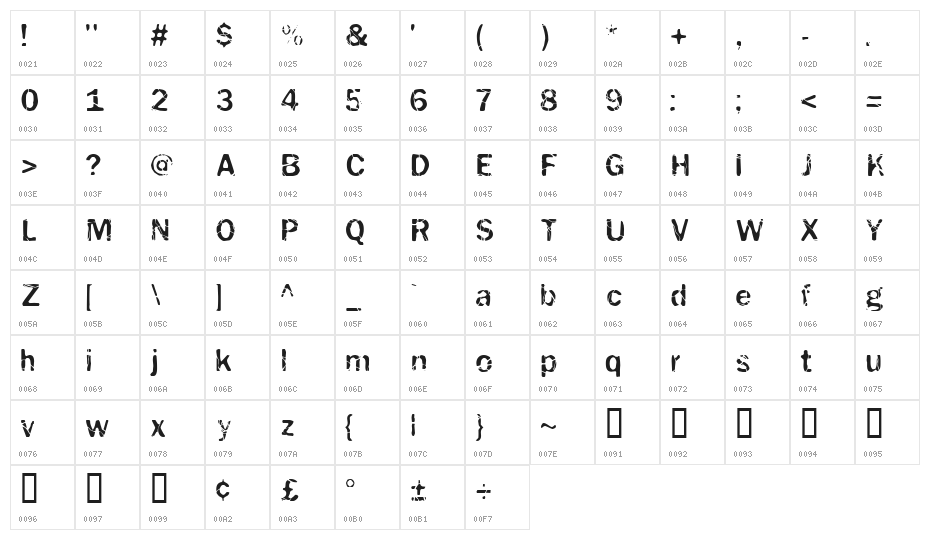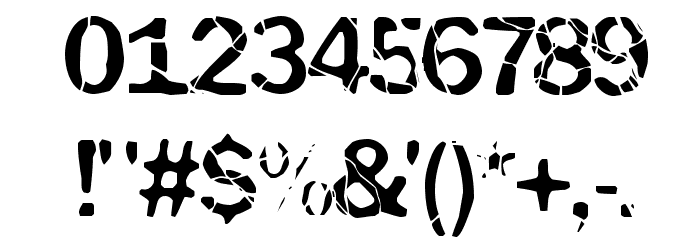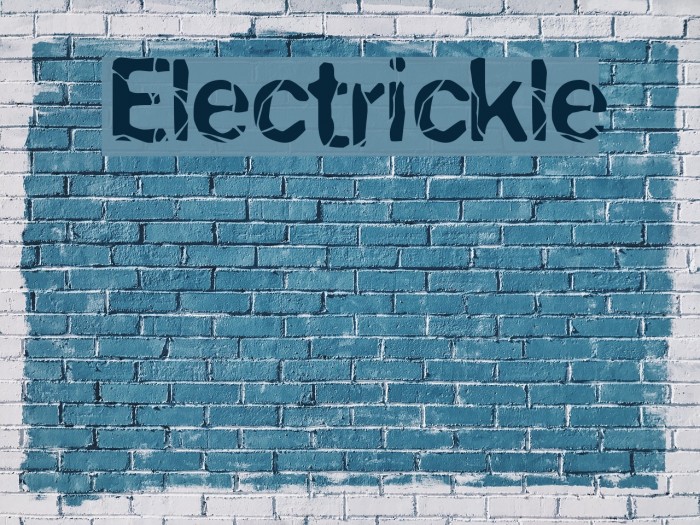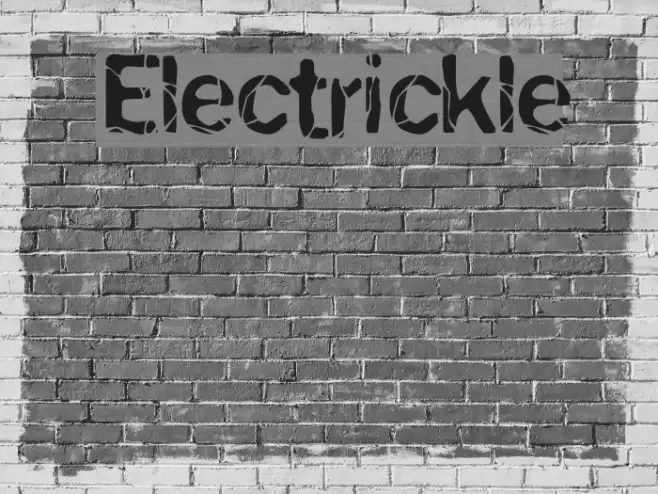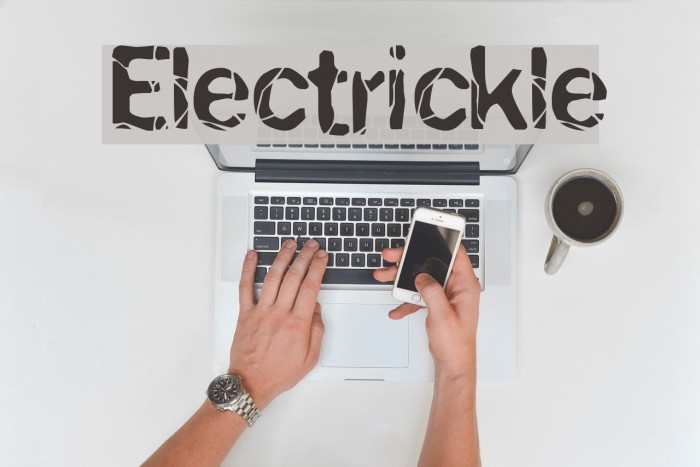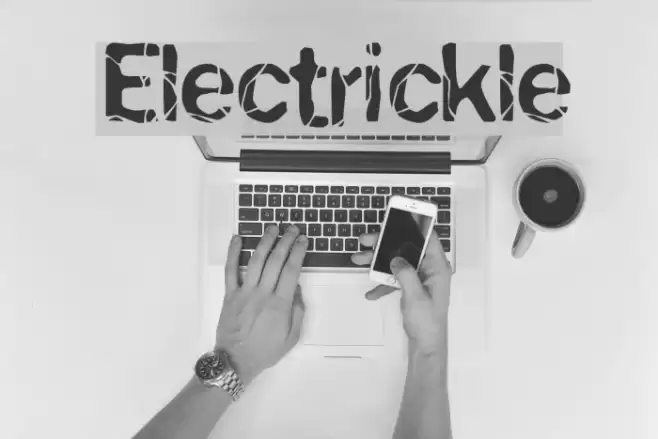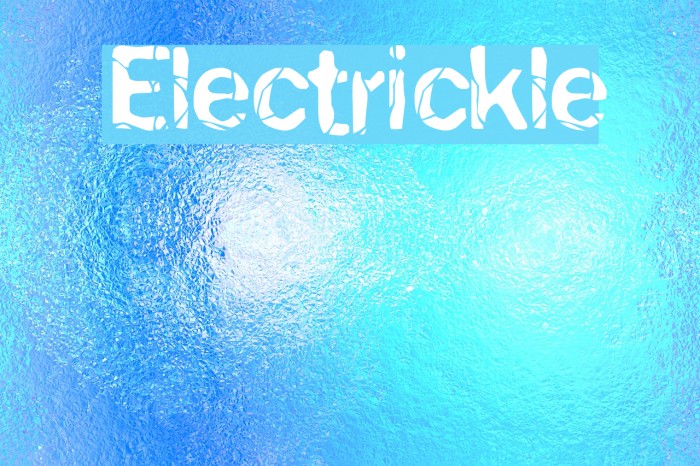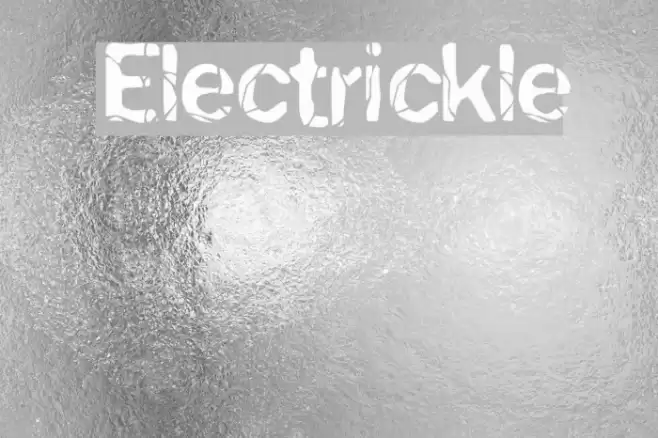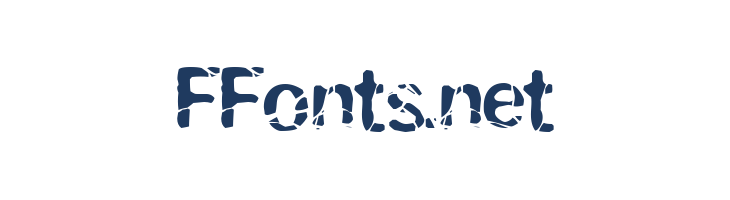
Electrickle Font
Electrickle Description
This font features a bold and dynamic design with a distressed, electrified appearance. The characters are heavily stylized, with jagged edges and irregular shapes that create a sense of movement and energy. The uppercase and lowercase letters maintain a consistent style, while the numbers and special characters follow the same electrifying theme. This font is highly decorative, making it ideal for projects that require a strong visual impact. Its unique style is reminiscent of lightning or electrical currents, adding a sense of excitement and intensity.
| Proposed Projects | Ideal for music album covers, event posters, video game titles, and branding for energy drinks or tech companies. |